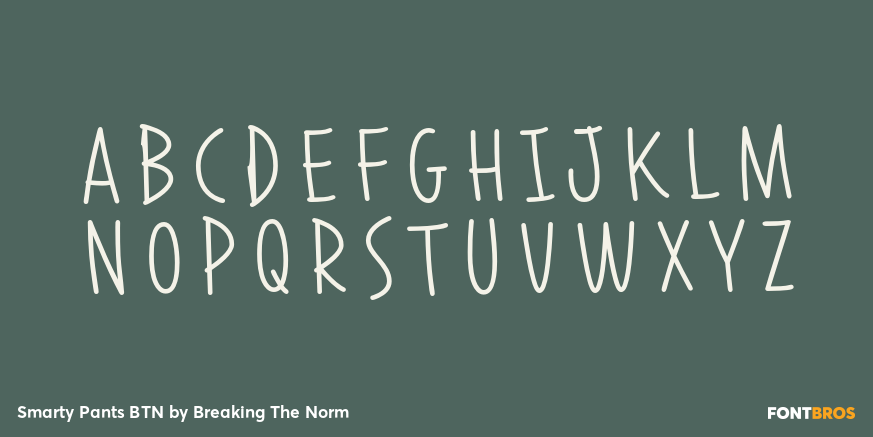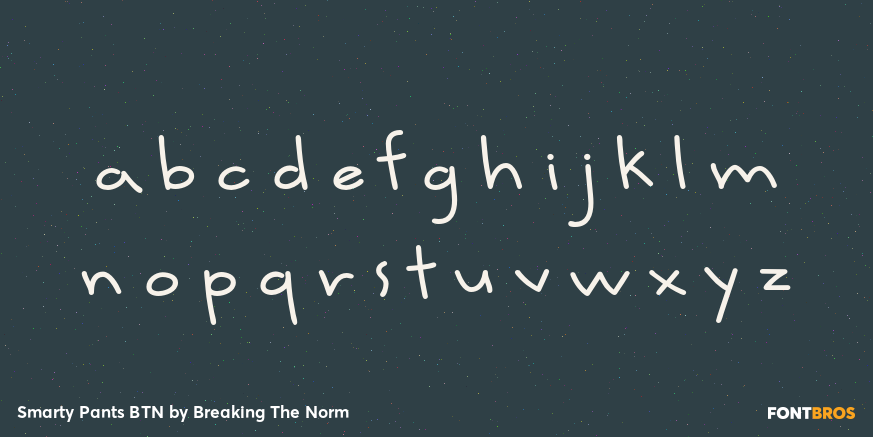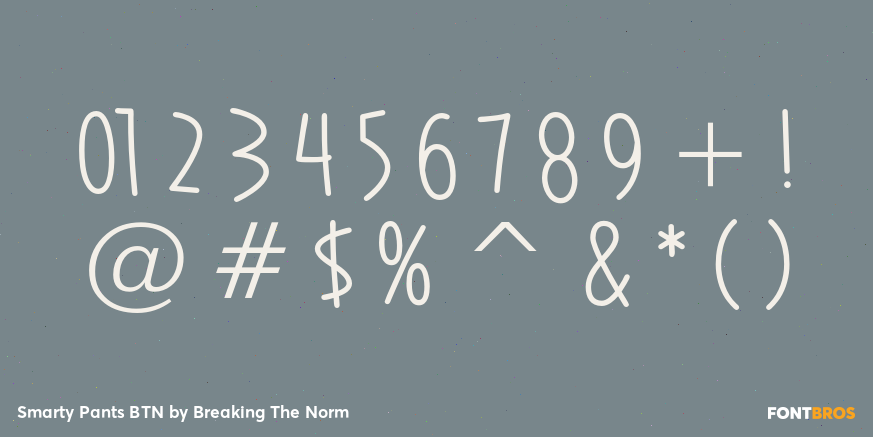
Smarty Pants BTN
Smarty Pants BTN is a playful handwritten display family with a casual, youthful personality. Its simple hand-drawn construction gives it an approachable, everyday feel that works well for school-themed graphics, classroom materials, scrapbook pages, journaling, kids’ projects, casual packaging, and informal branding. With Light, Regular, and Bold weights, Smarty Pants BTN offers flexible options for designs that want a friendly handwritten voice with a touch of energy and charm.